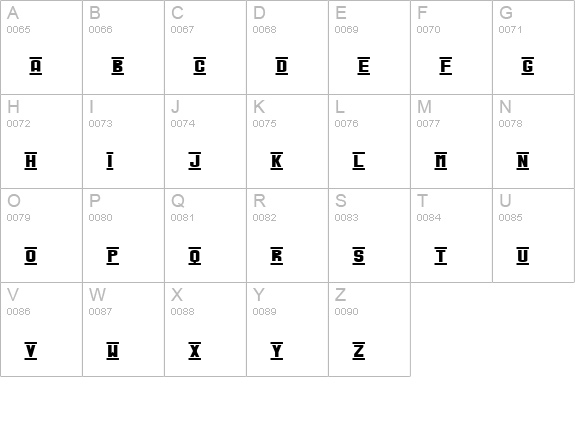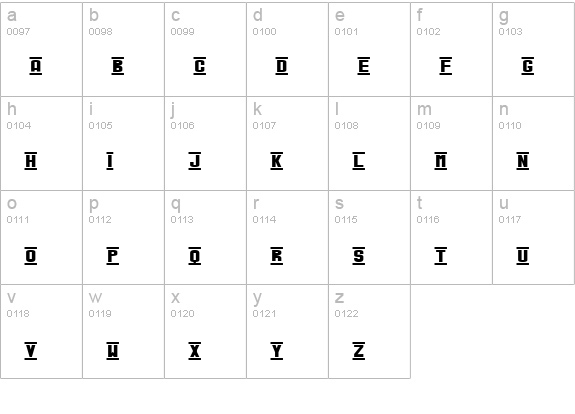
Veruca Black Font Details
Veruca Black is a maximum-weight, dramatic variant in the Veruca typeface family \xE2\x80\x94 well suited to maximum-impact headlines, posters, and packaging.
Veruca Black font is a bold and striking typeface that exudes elegance and modernity. Its sleek lines and strong presence make it the perfect choice for projects that require a touch of sophistication and professionalism. With its bold weight and unique design, Veruca Black font effortlessly commands attention and makes a statement. Whether it is used for headlines, titles, or logos, this font is sure to leave a lasting impression. What sets Veruca Black font apart is not just its aesthetic appeal, but also its versatility. It is equally suitable for both print and digital media, making it a valuable asset for designers, marketers, and content creators. And the best part? Veruca Black font is available for free download at FontsMarket.com. This means that anyone can easily access and enjoy the benefits of this stunning font, without having to worry about any additional costs. So go ahead and give your projects a touch of class with Veruca Black font. Download it for free at FontsMarket.com and let your creativity shine.